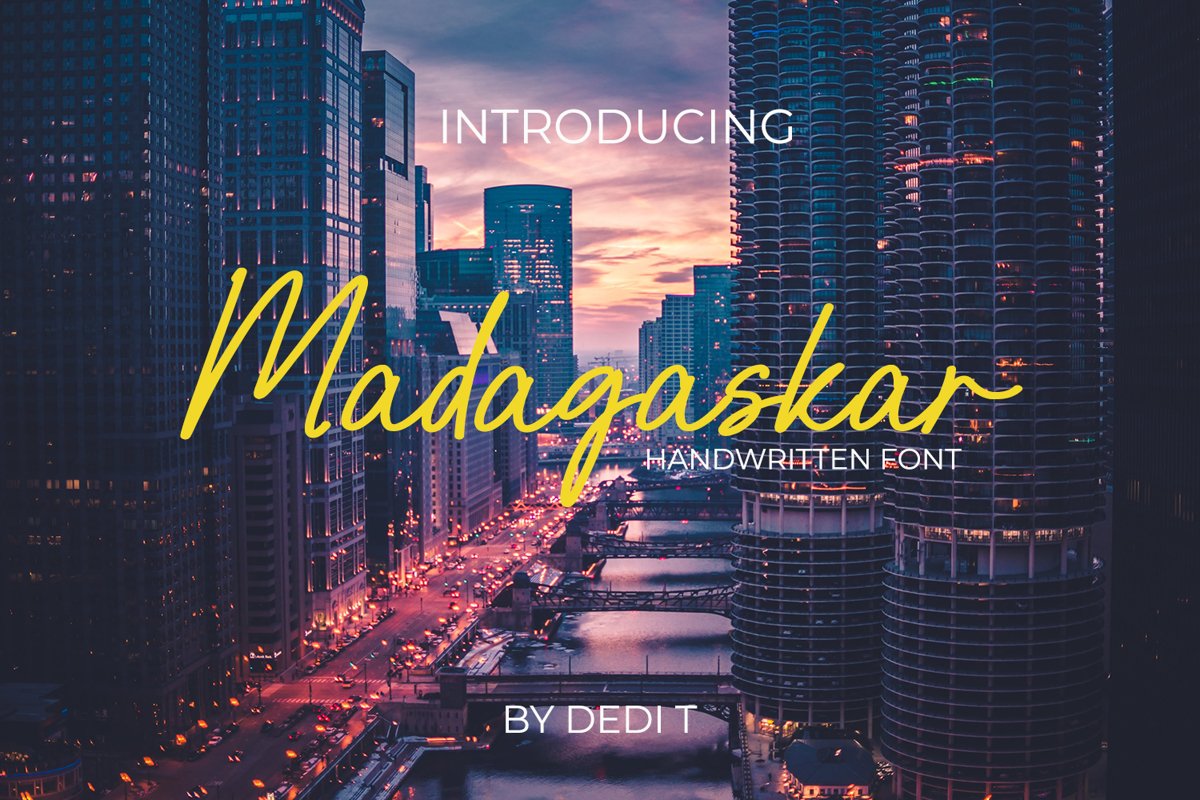
Madagaskar
Introducing Madagaskar Font. Madagaskar is a playful font that includes a signature script. With a classy and natural handwritten style, it brings a classy and chic typeface. Madagaskar is  ideal for display, logotype, quotes, text, print, branding, birthday, birthday invitation, gift card, with a set of optimal characters for your design in any layout. Happy Design..